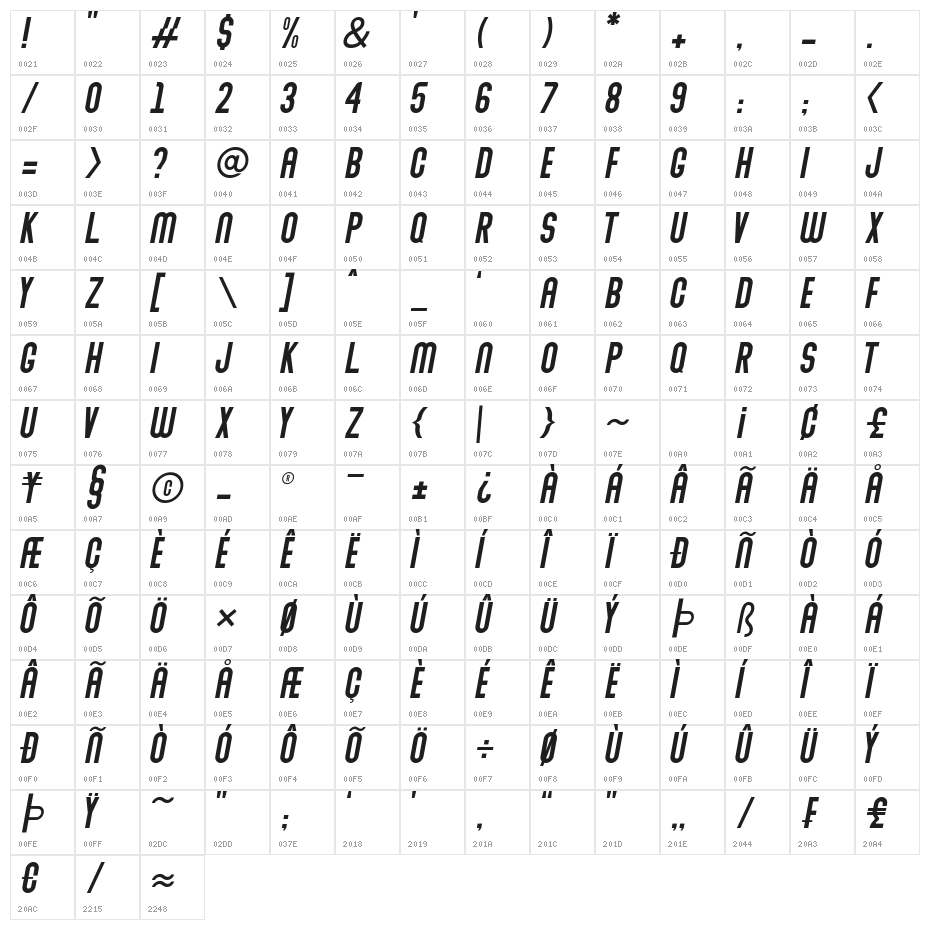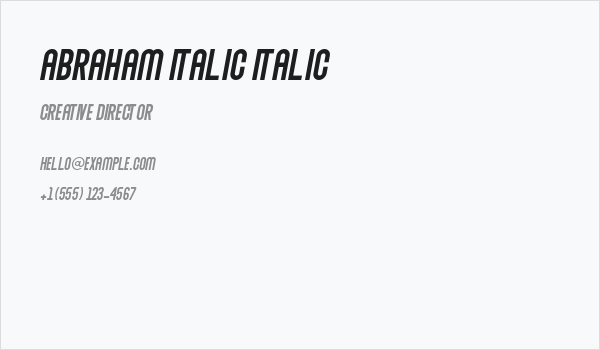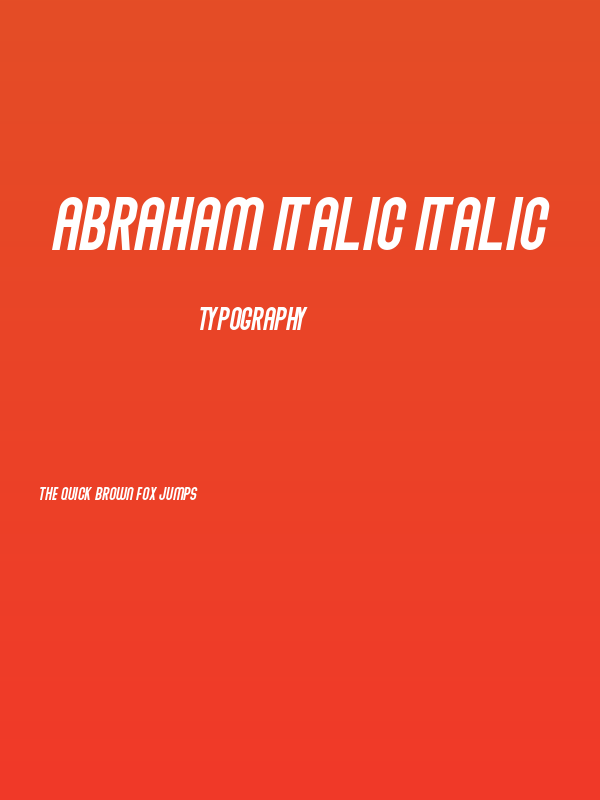
Abraham Italic Italic Font
Abraham Italic Italic Description
This font features a bold and italicized style, characterized by its strong, slanted letterforms that convey a sense of movement and dynamism. The characters are tall and narrow, giving the font a condensed appearance, while the strokes are consistent in thickness, providing a uniform look. The uppercase and lowercase letters maintain a cohesive design, with smooth curves and sharp angles that enhance readability. The numerals and special characters are designed to match the overall aesthetic, ensuring versatility across different types of content.
| Proposed Projects | Ideal for branding, advertising, and editorial design where a bold statement is needed. |